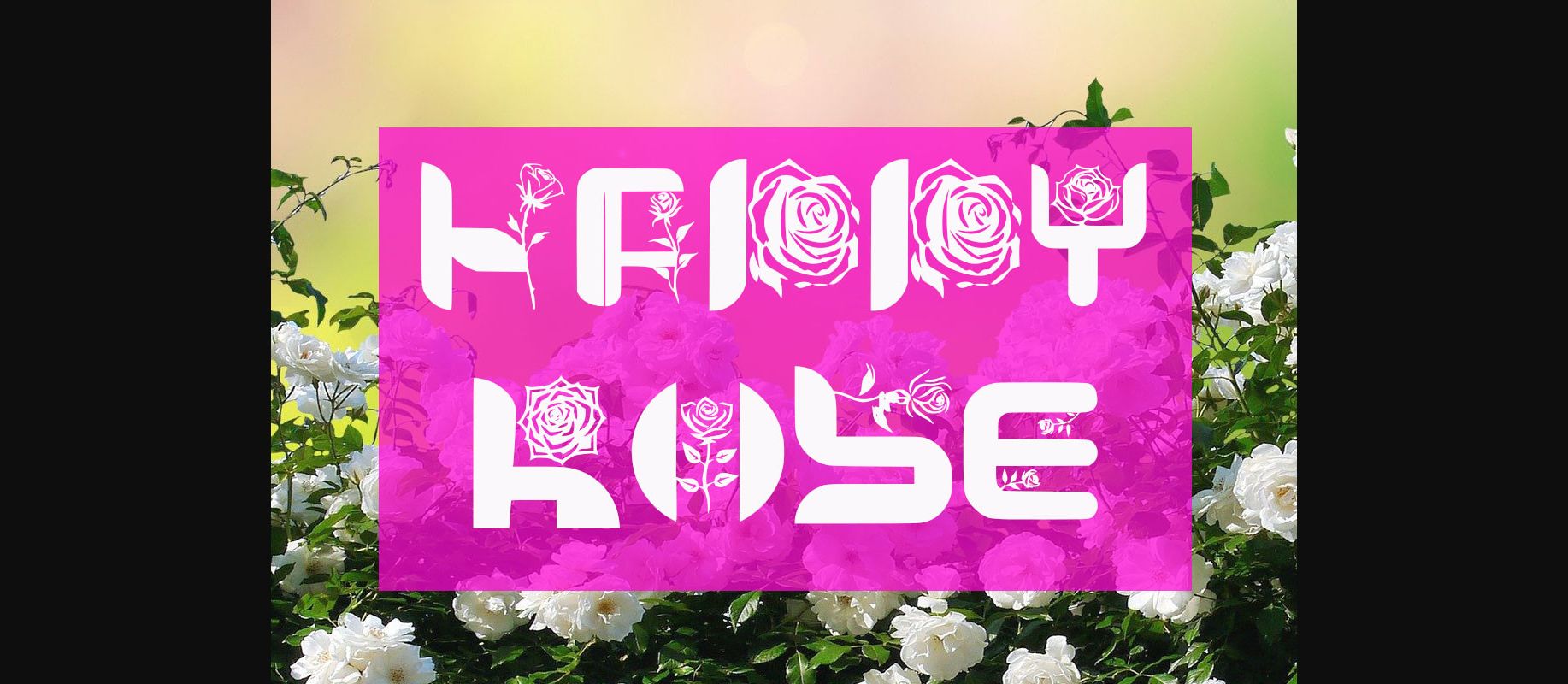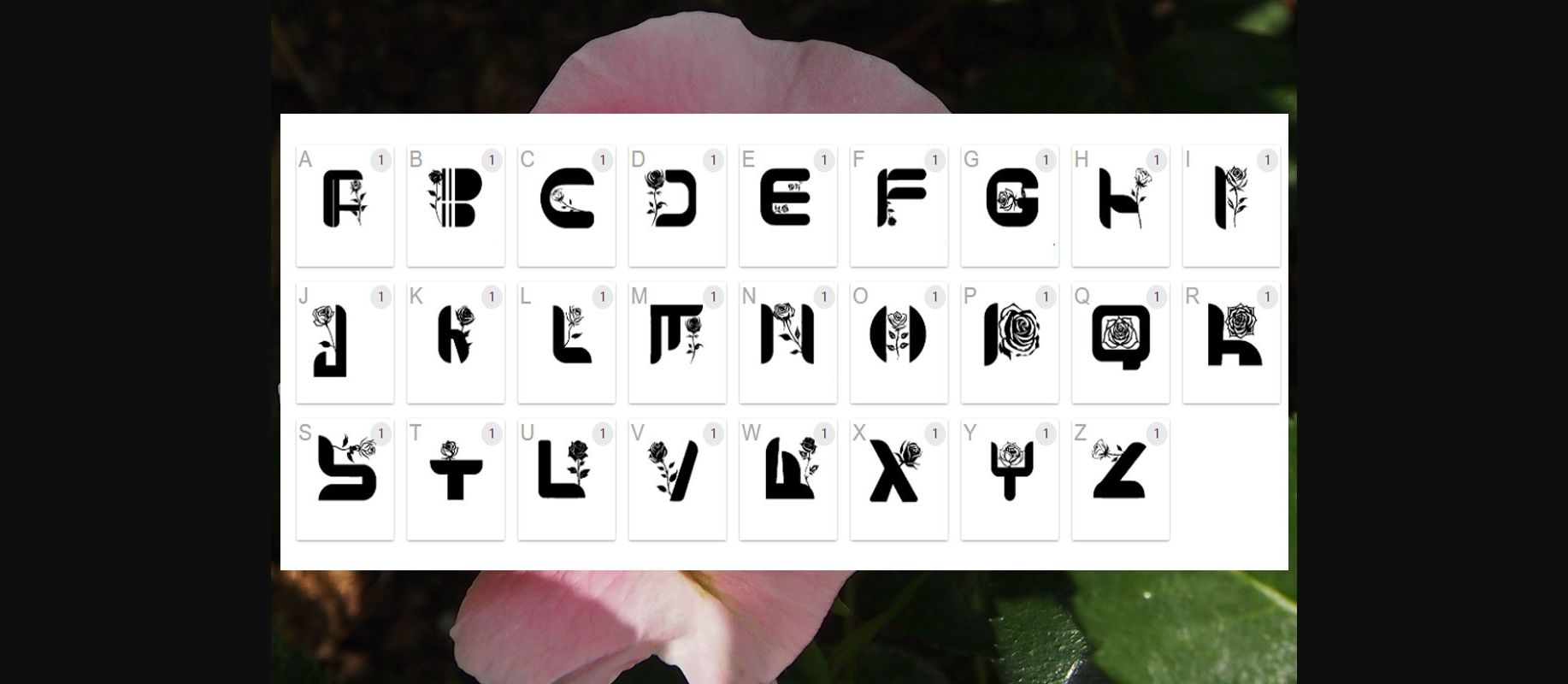
Crazy Rose Font
About Crazy Rose Font
Crazy Rose is cute Decorative Font with lots of roses. It is versatile and suitable for various applications including shirt patterns, bags, mugs, greeting cards, planner decorations, unique occasion card adornments, and much more.